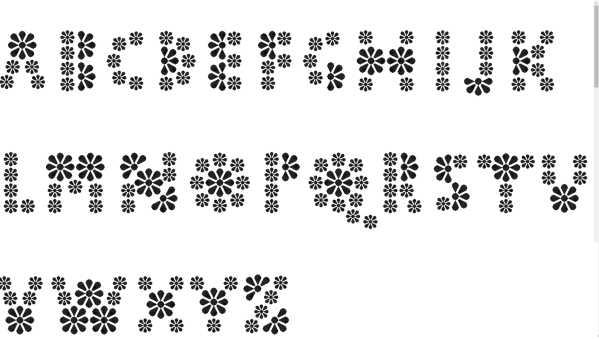
embroidery of the enamored
This is actually very nice. Maybe F needs to be done in a different way though.
oh, u are right. i changed it. thx!
This looks really good. It may not be legible, but it sure has charm, as the sample very well shows. 10/10+fav
Also, H doesn't fit with the other letters in my opininon
when lovecomp was announced i was in the middle of making a new flowery font (i will publish it later - still not finished) which unfortunately is higher than 48 bricks (one of the lovecomp rules), so i made this AB version with simple "pluses" substituting giant "flowers" to abide the 48 rule... in flowery version H is ok... here it is a bit problem... i want to keep both scripts compatible... making gap between pluses would result in H too wide... anyway, i will think of it, but H will prolly have to remain slightly improper :))
after two days long deliberation, H changed too :)) thx! for favor and for pointing out the problematic detail
Looks much better. Thanks for listening, and glad I could help :))
There is quite a romantic feel to the glyphs, maybe because it looks airy.  I can still see 'flowers' !
the primeval (giant) flowery floriitutaAA will look like this (pic below) => pluses in floriitutaAB are sort of rudimental flowers... thus romantic feel is within the very roots of this typeface... besides, floriitutaAB is highly suitable to be embroidered which gives “her” endless romantic potential... i expect to make plenty of floriituta versions (aka floriituta herbarium collectibles)
This looks very good, I'm looking forward to seeing all the other versions.
The sample of that original font looks very good. I hope you will still publish it.
i was carried away making alternatives of the simplified version, but sooner or later i will return to the "original" (will complete the full set and will publish it)
I knew there was a big potential in this one, and the original version is the proof. Definitely will be a strong competitor if you enter it to the LoveComp.